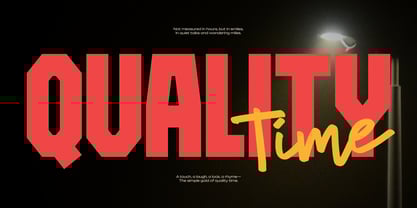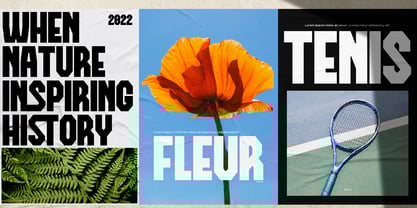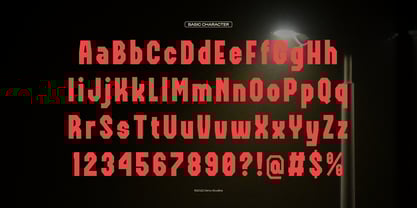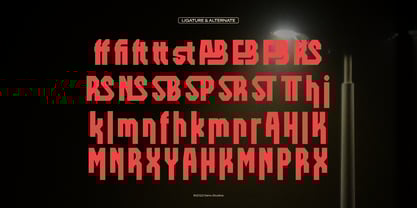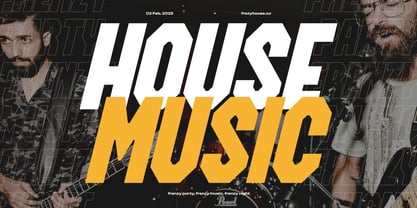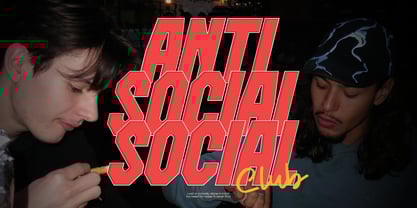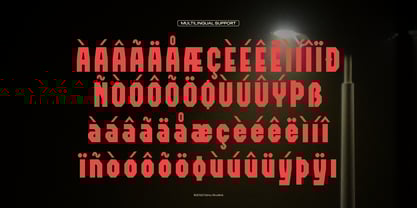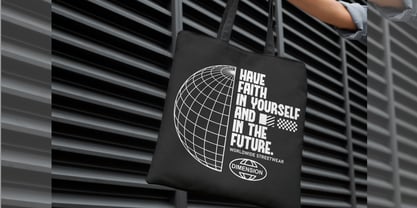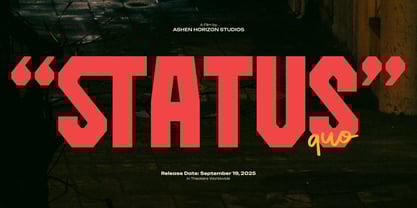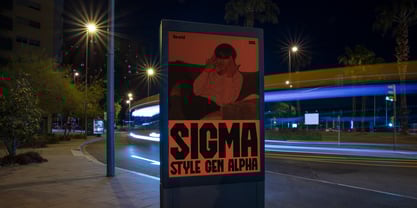
Debron Orders
by Denustudio
The Debron Orders Font Family was designed by Dede Nugraha and published by Denustudio. Debron Orders contains 2 styles and family package options. More about this family
Debron Orders | Bold Sans Serif, from Denustudios, suitable for any projects such as: logos, branding projects, homeware designs, product packaging, mugs, quotes, posters, shopping bags, t-shirts, book covers, name card, invitation cards, greeting cards, label, photography, watermark, special events, and all your other lovely projects that need Bold Sans Serif a taste.
• Regular and Italic
• Standard glyphs
• Alternate and Ligature
Designers: Dede Nugraha
Foundry: Denustudio